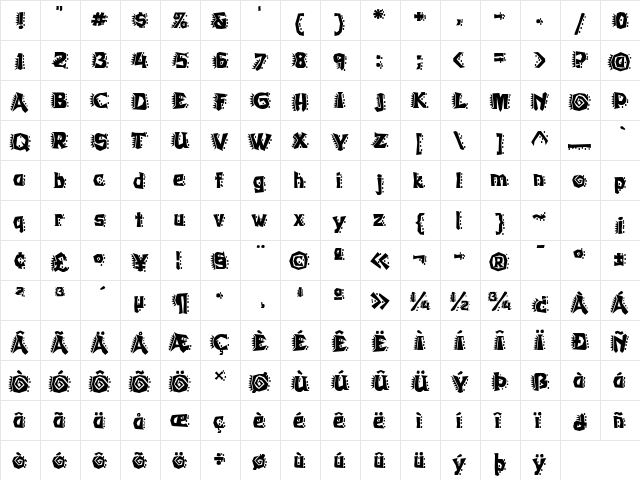
Whassis ICG Frantic Regular
Design Context for Whassis ICG Frantic Typeface
Whassis ICG Frantic is a composed and adaptable typeface that performs quietly and consistently across a wide range of design contexts.